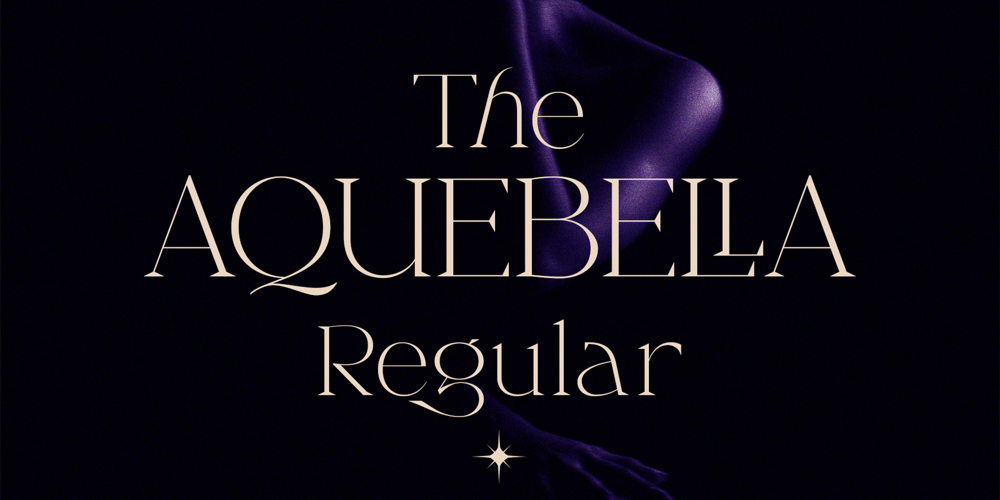
The Aquebella
The Aquebella font
The Aquebella Font Family was designed by Bakhrudin Ja’far and published by Jafar07. The Aquebella contains 1 styles and family package options. The Aquebella font was made because I had too much trouble finding a font that was unique but still within the serif standard, as a branding designer about finding a suitable font for a client who is looking for a luxurious and elegant design, and finally this font is finished which you can use as a designer or someone who need a serif font with a very unique style, elegant style and can be used as a logo, magazine header, poster, etc.